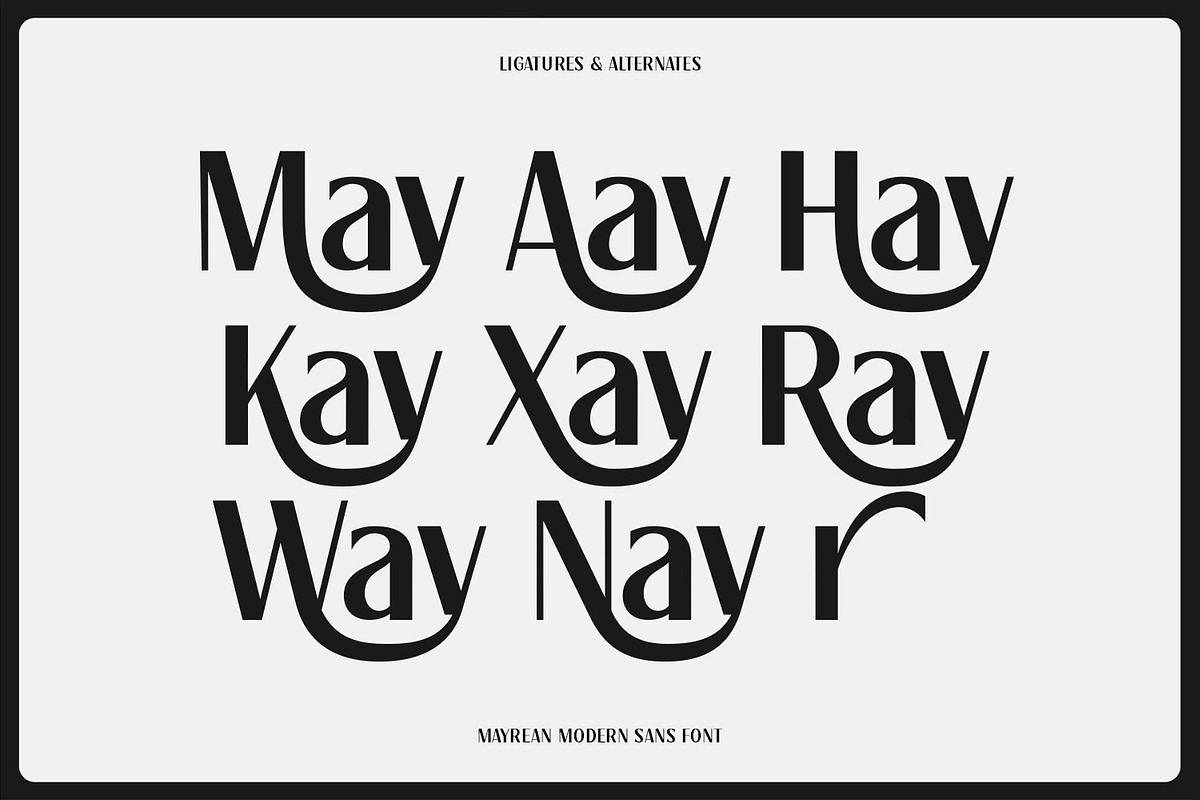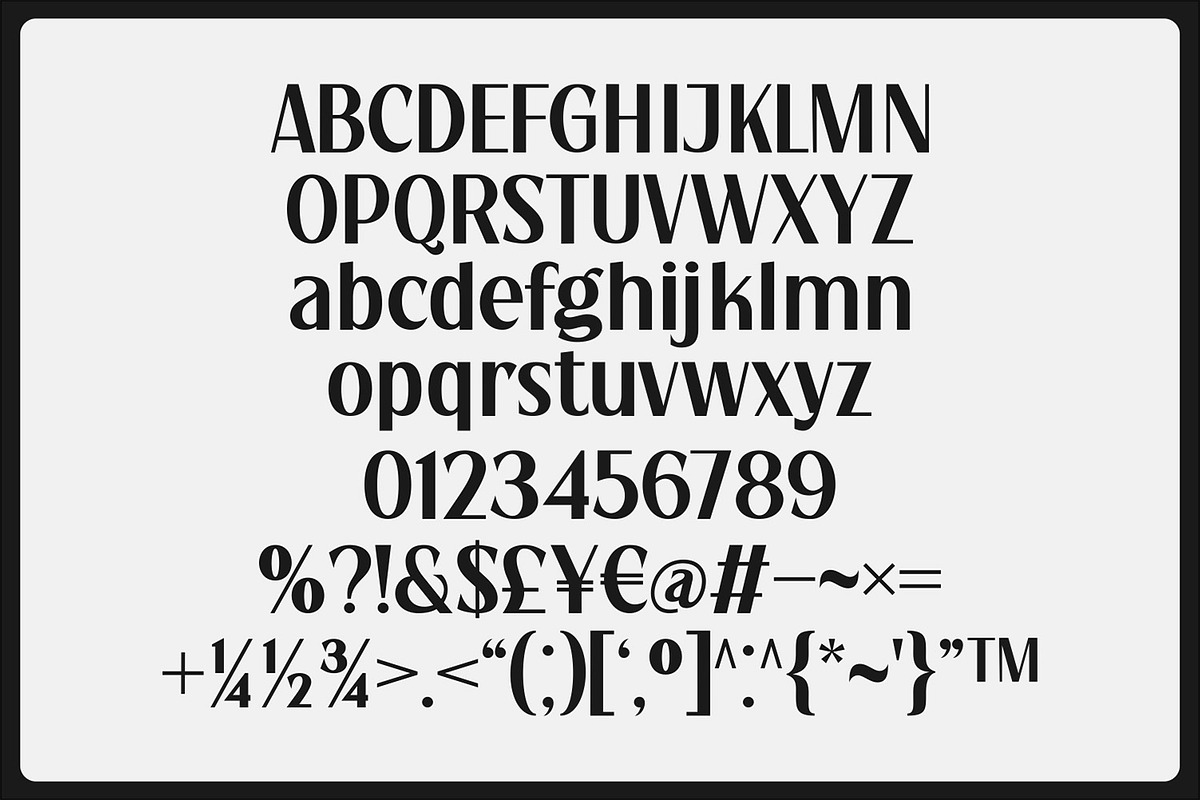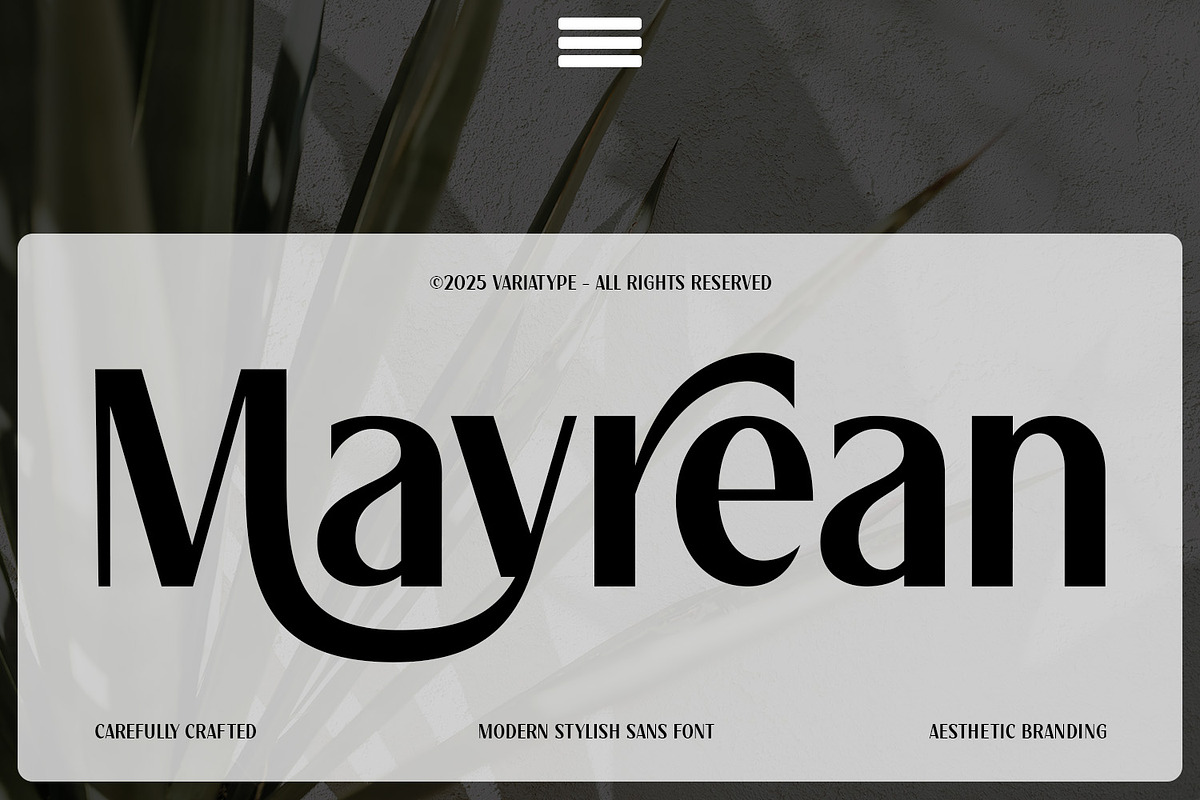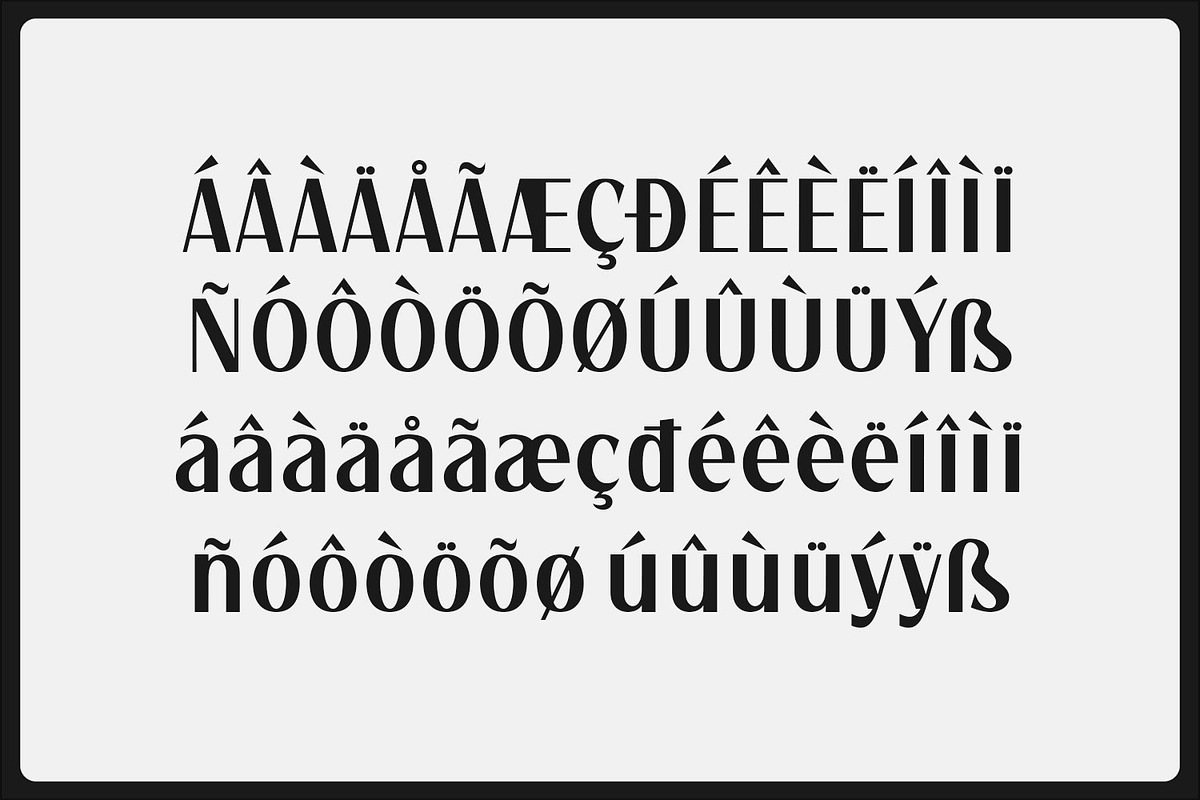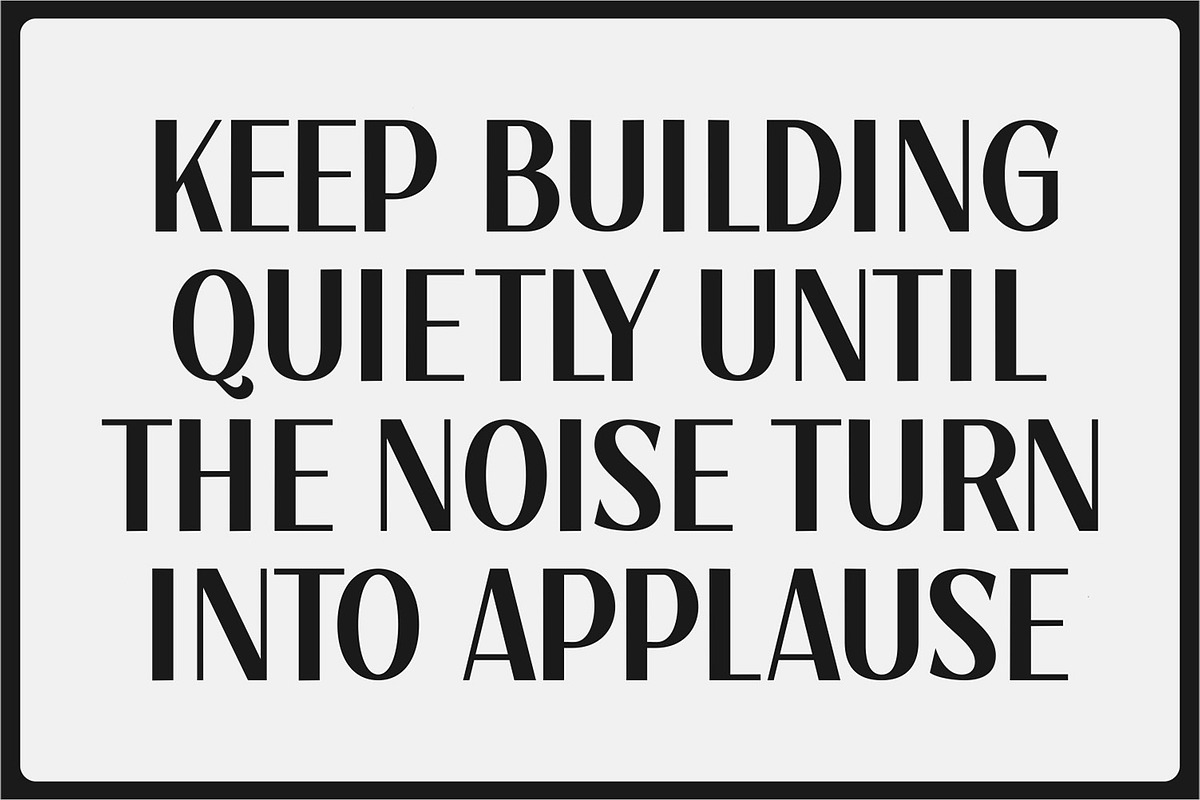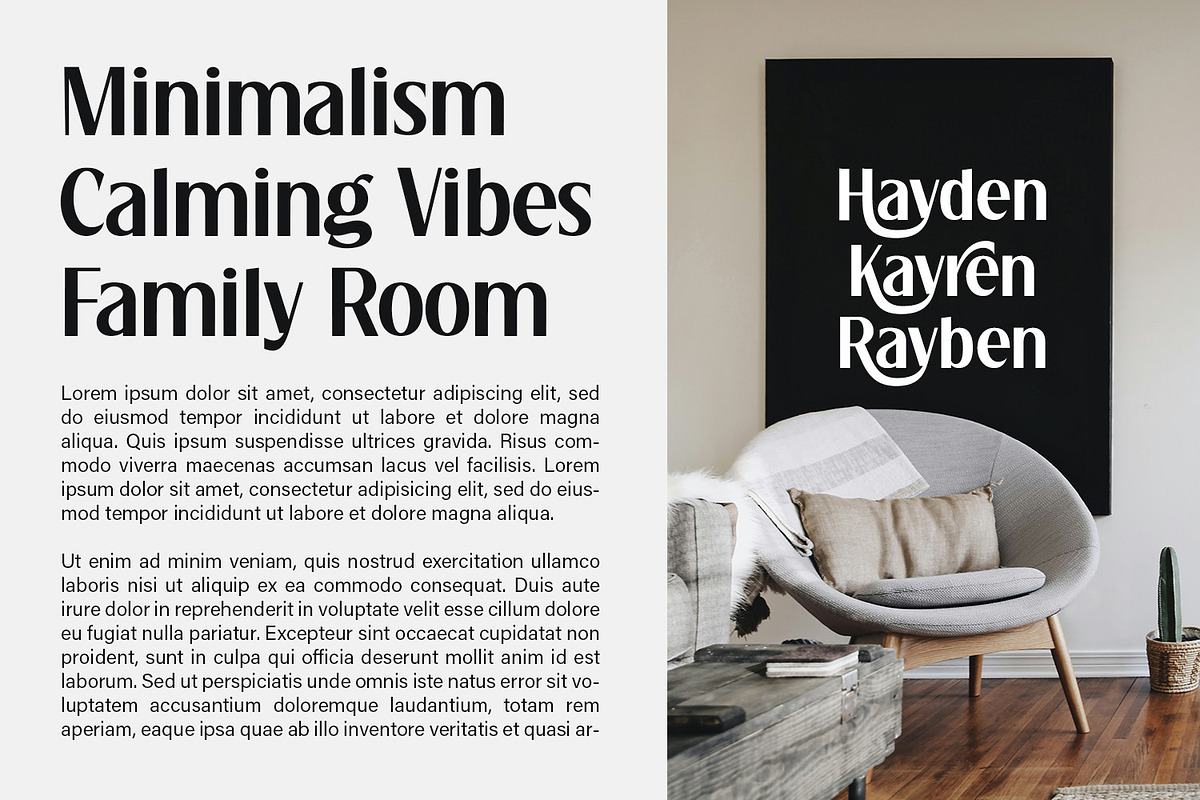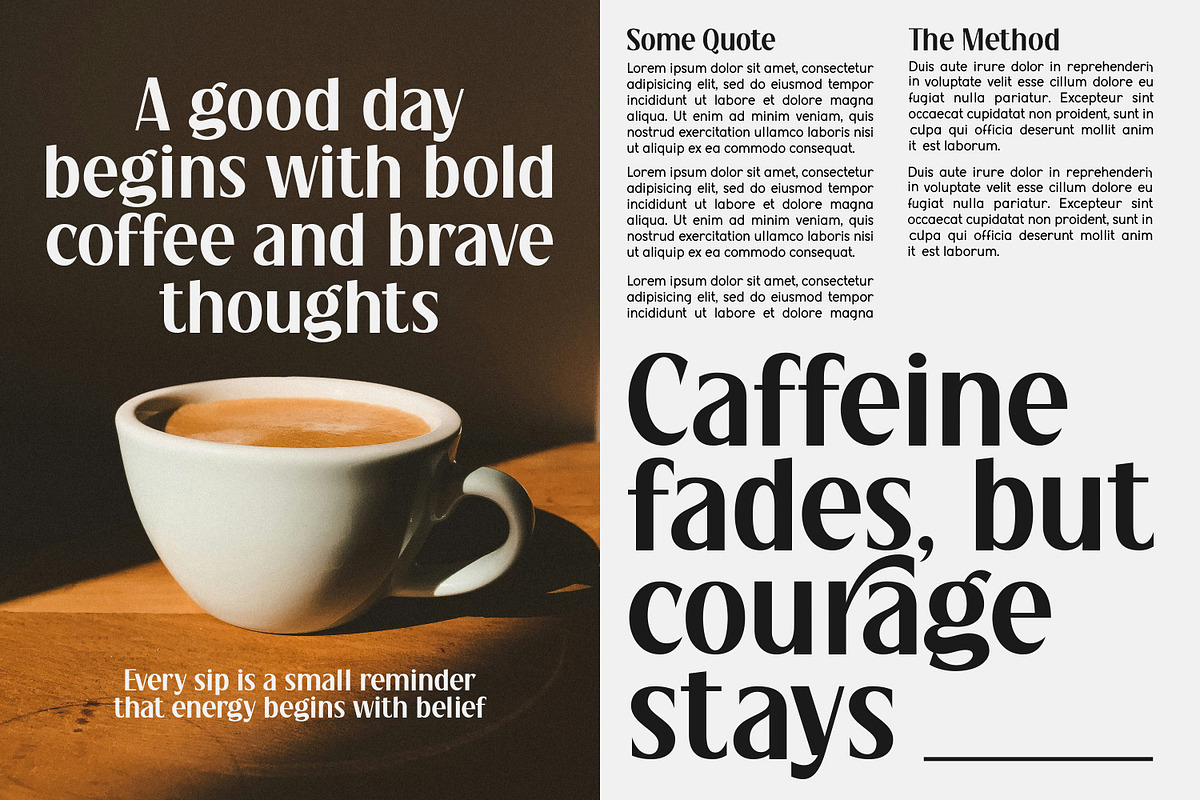
Mayrean - Modern Stylish Sans
Mayrean is a modern casual sans serif font crafted with smooth curves and stylish character shapes, offering a perfect balance of elegance and approachability. Its unique letterforms make it ideal for branding, logos, packaging, fashion visuals, social media, and any design that calls for a clean yet distinctive aesthetic. With its contemporary flow and subtle personality, Mayrean brings effortless sophistication to every project.
FONT FEATURES
Additional Accents
64 Languages
Kerning